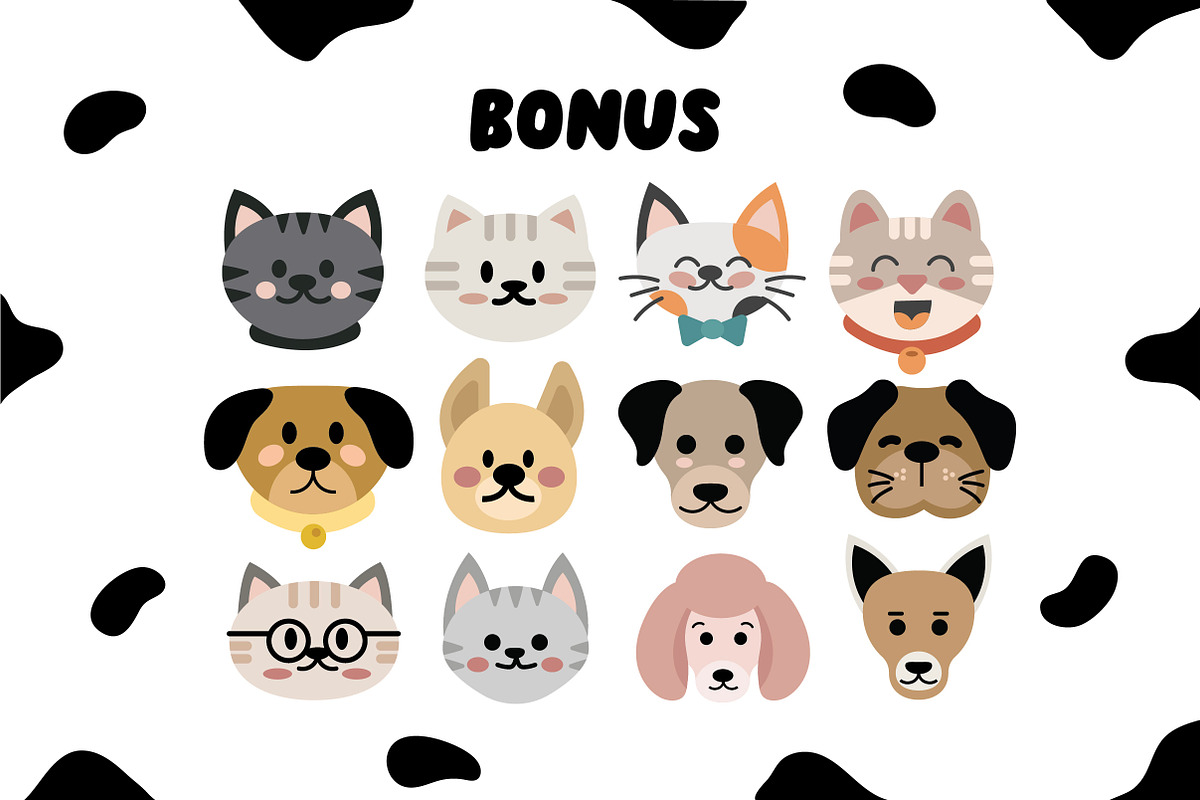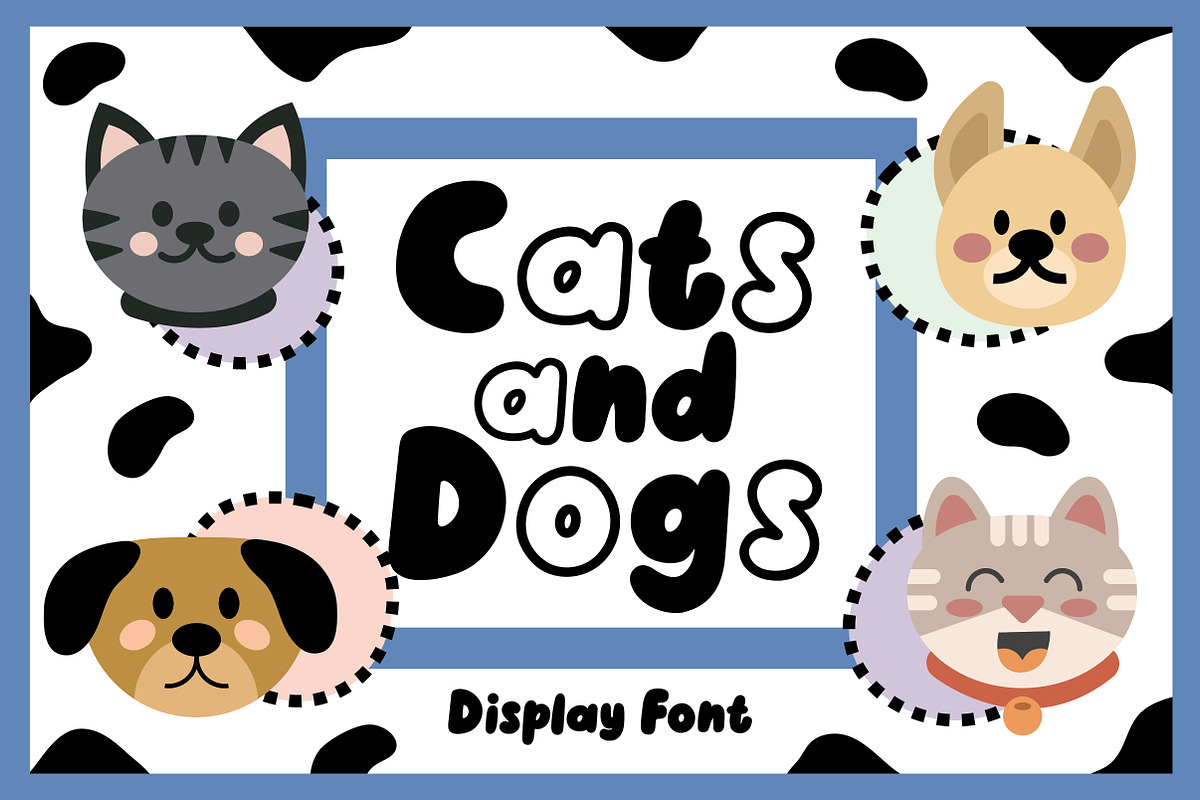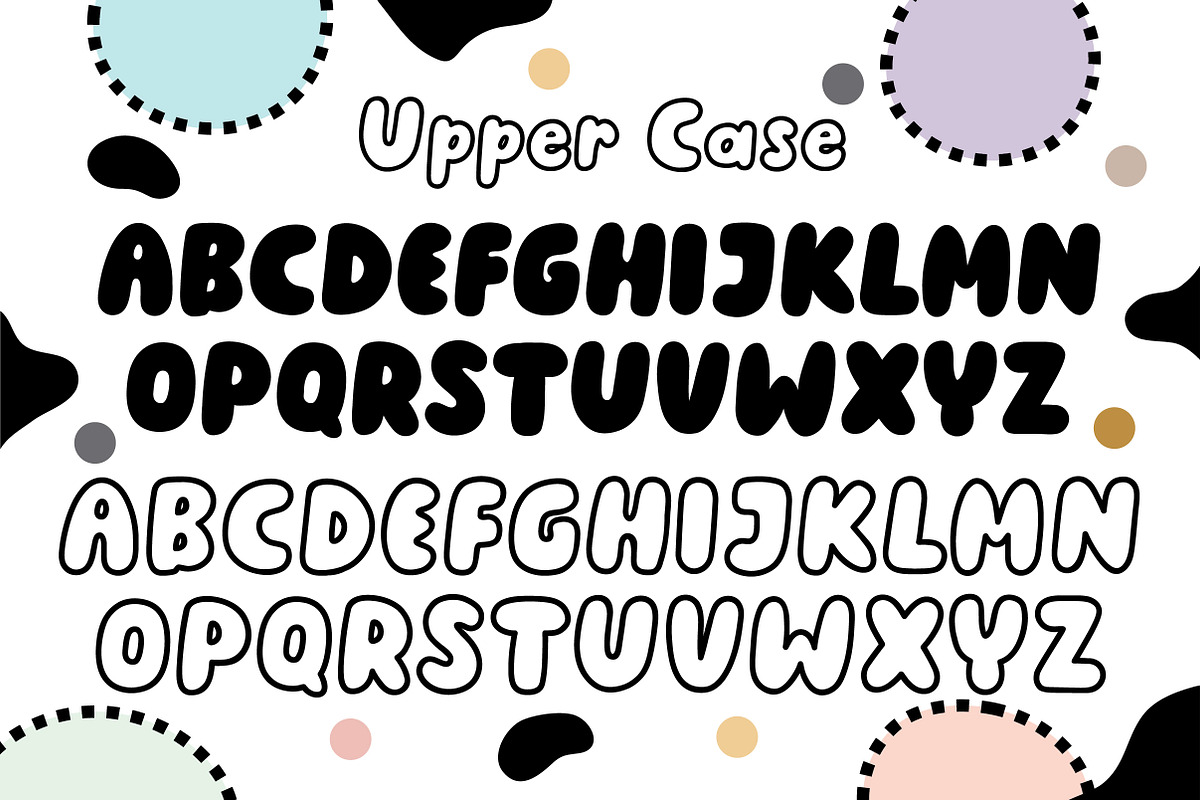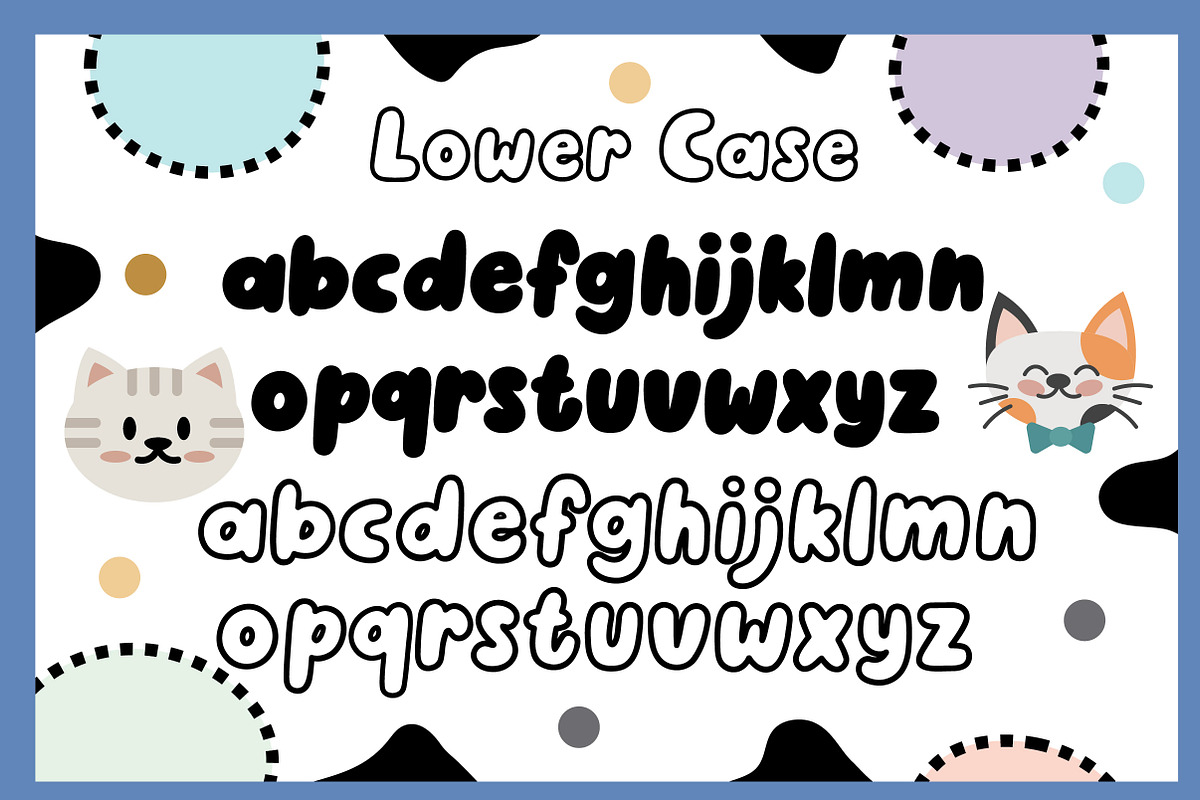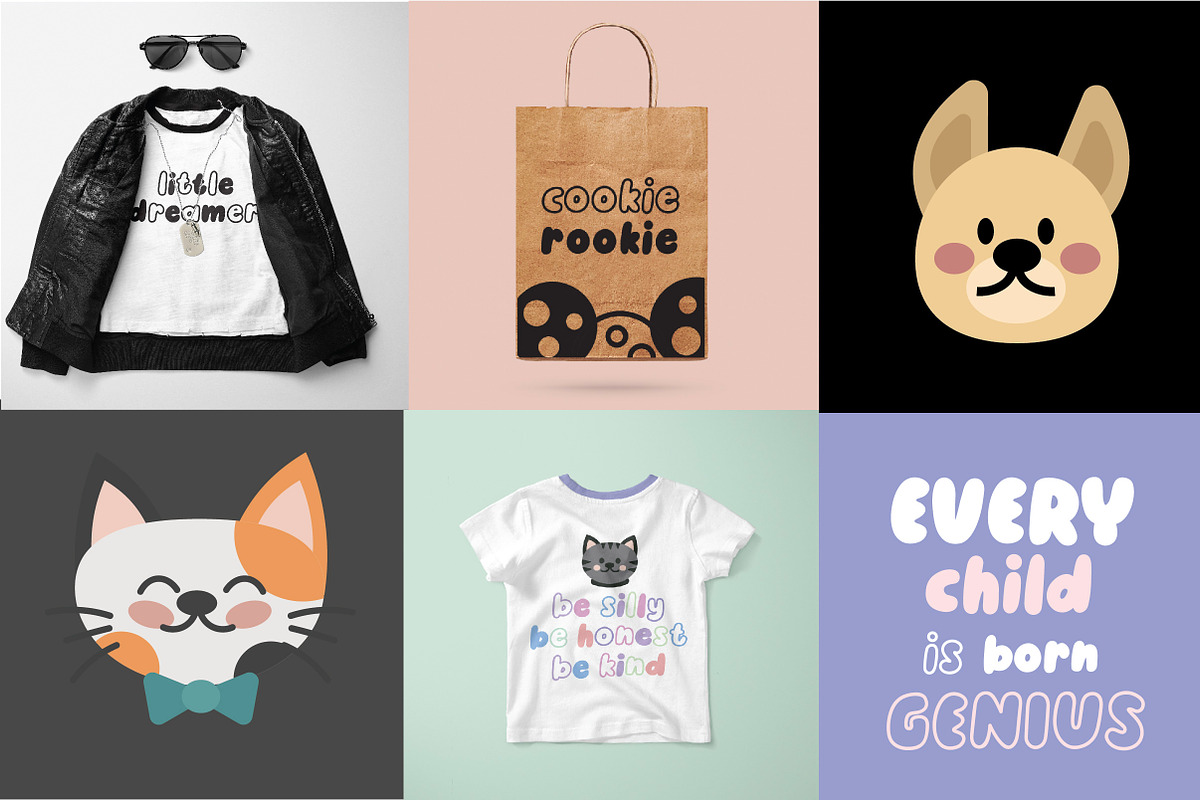
Cats and Dogs
Cats and Dogs is a quirky handmade font with 2 styles: regular and outline. It is suitable for titles, text, and many more. This package has 12 clipart of dogs and cats in PNG 300 dpi format. What's inside :